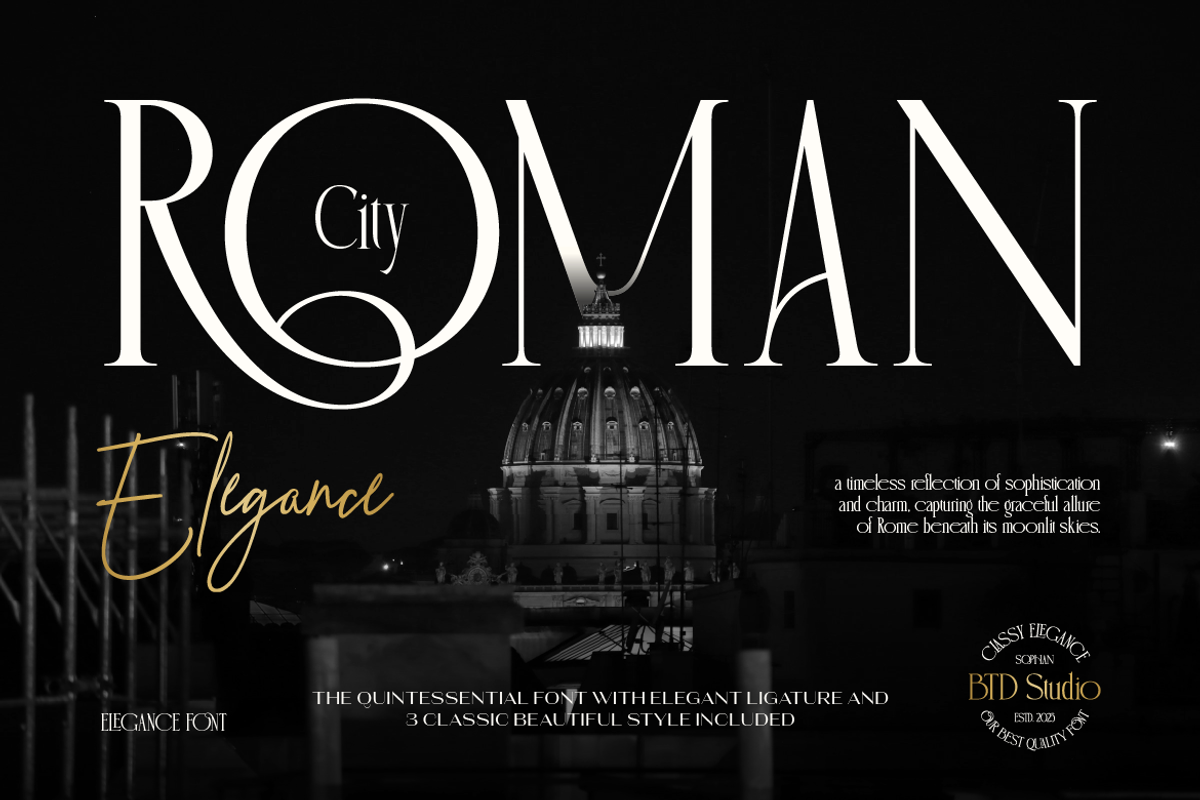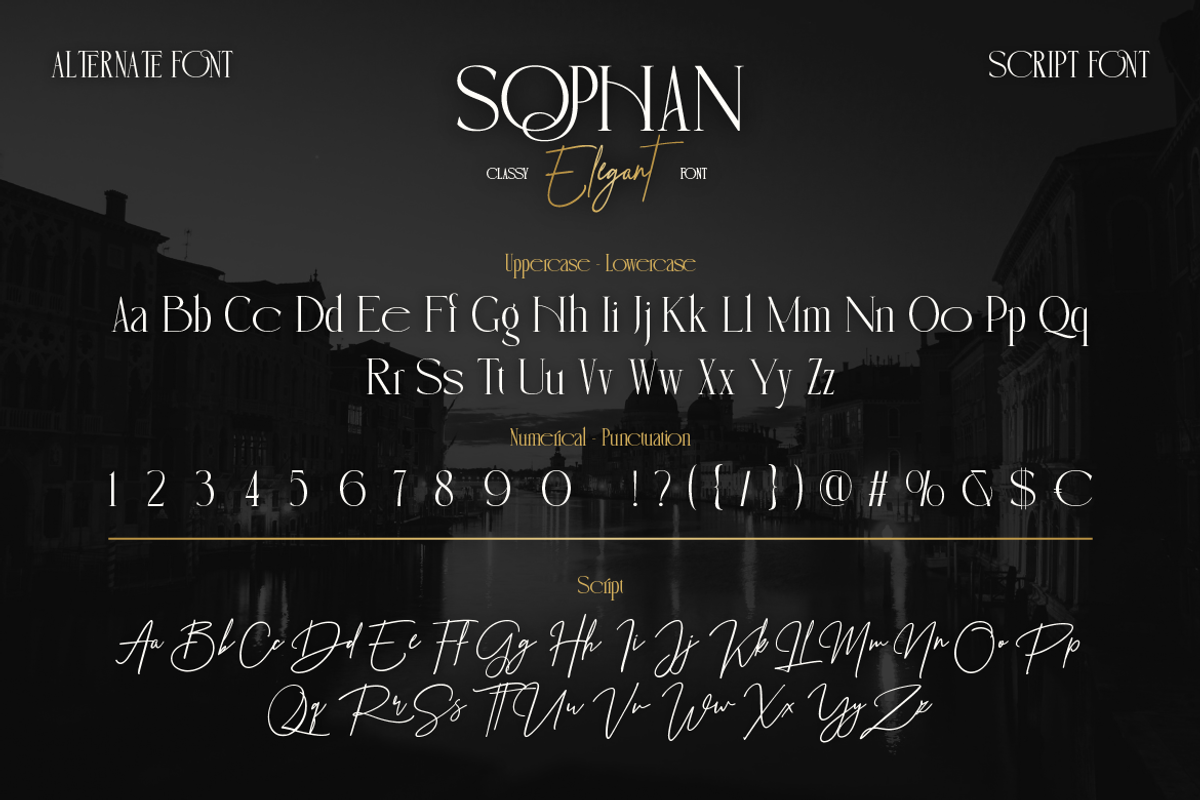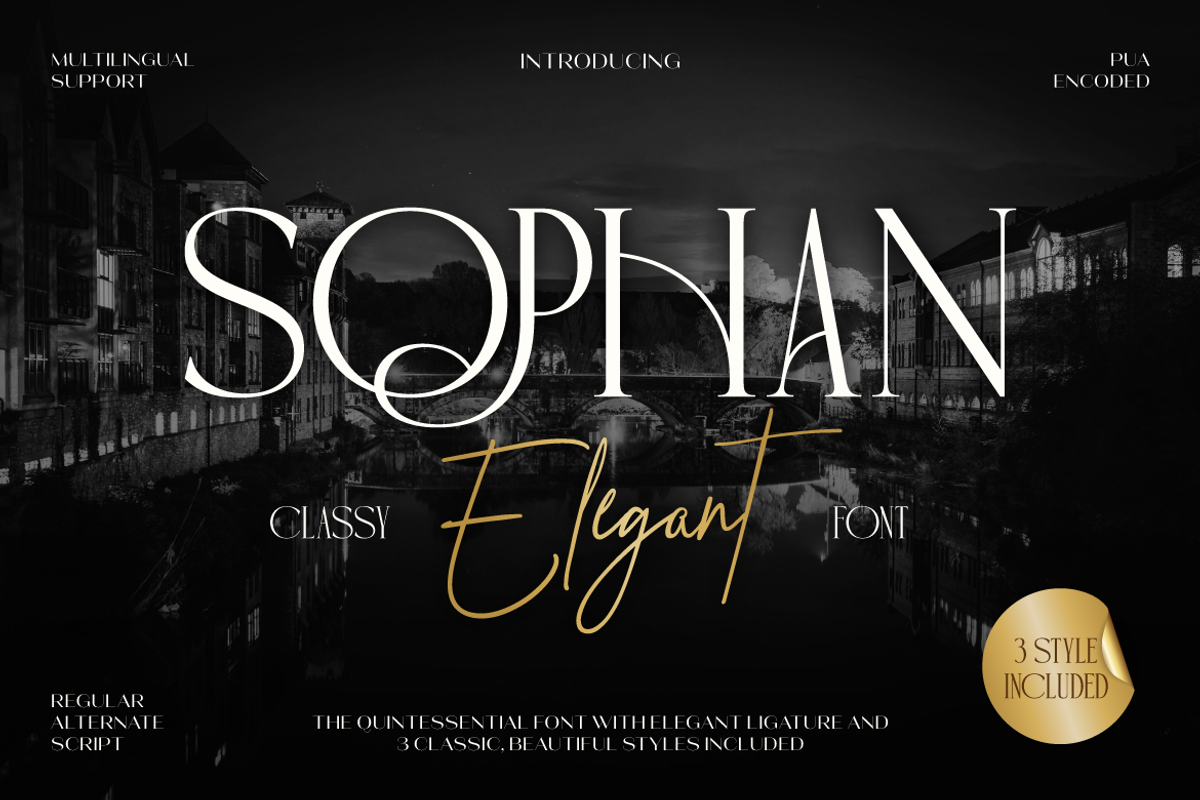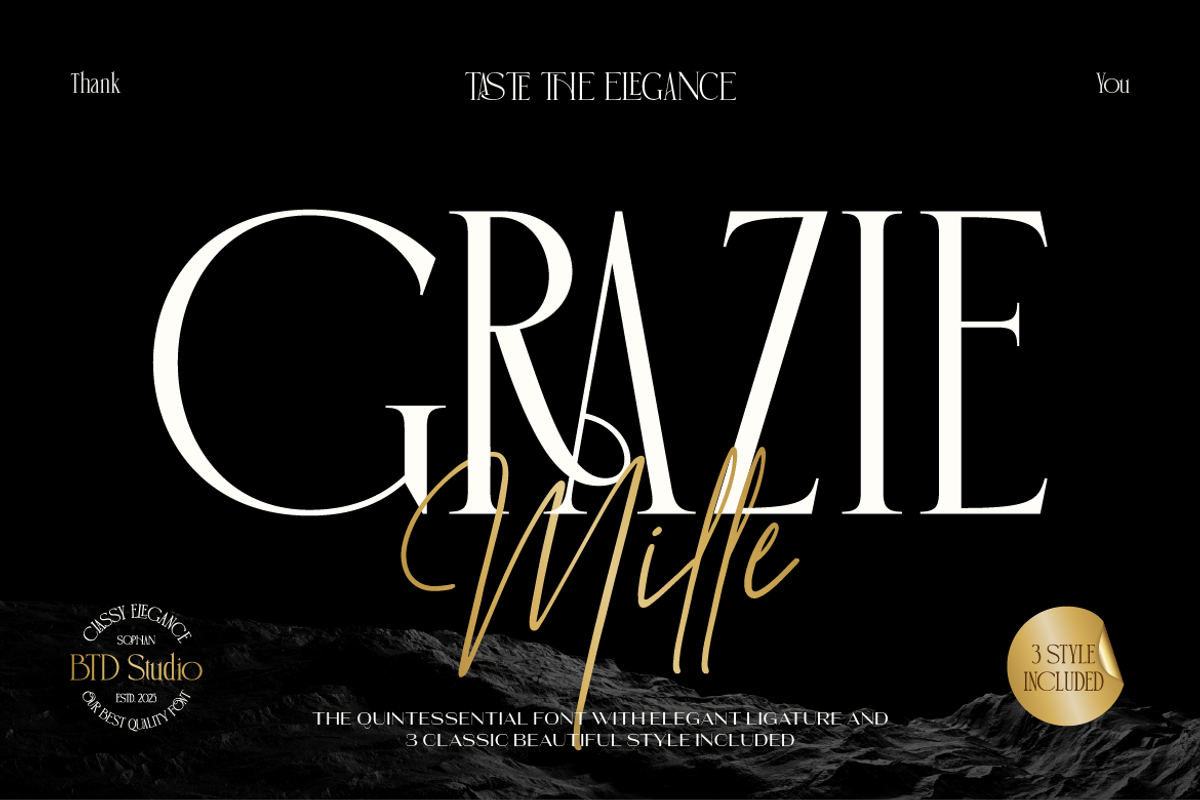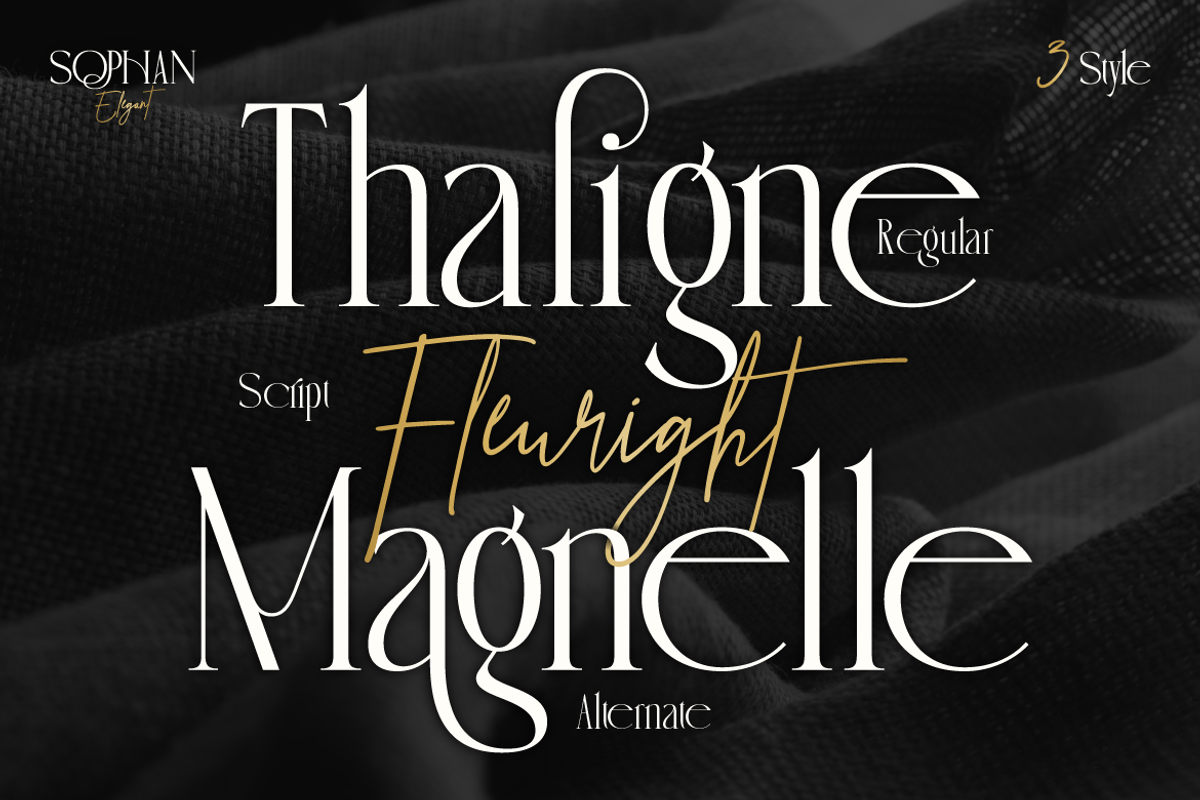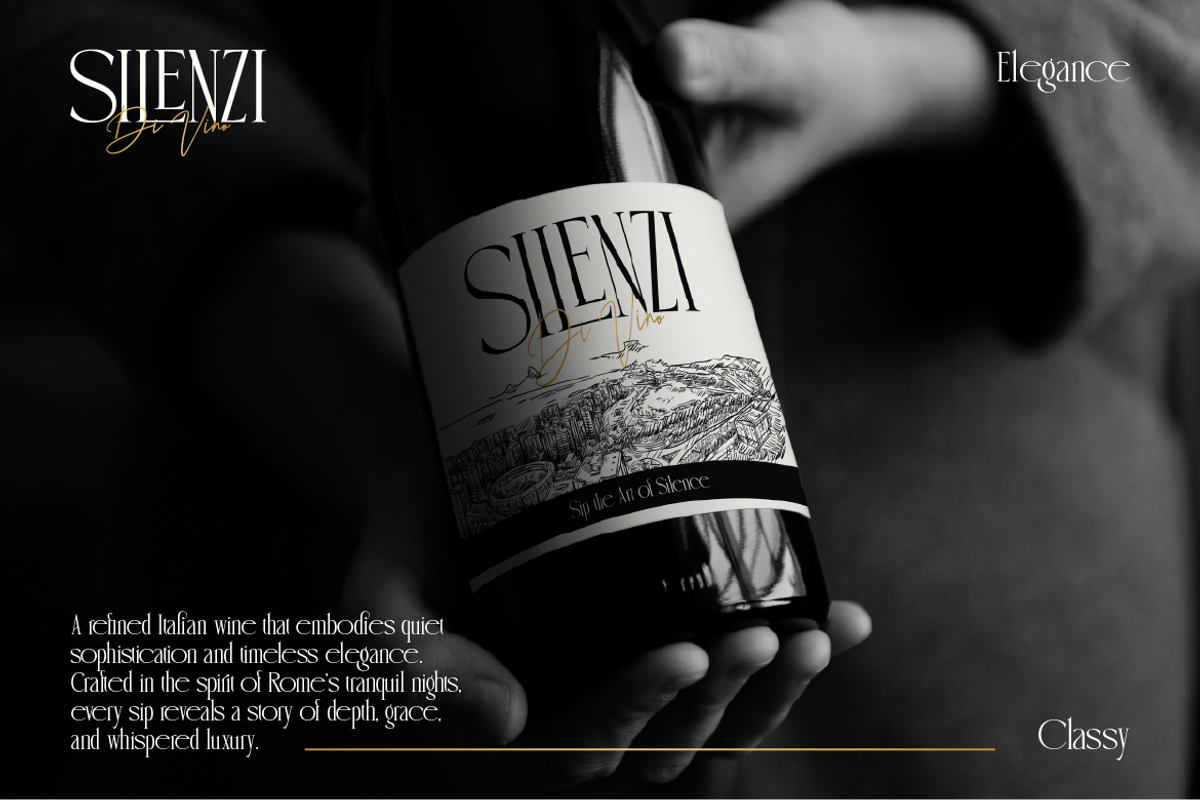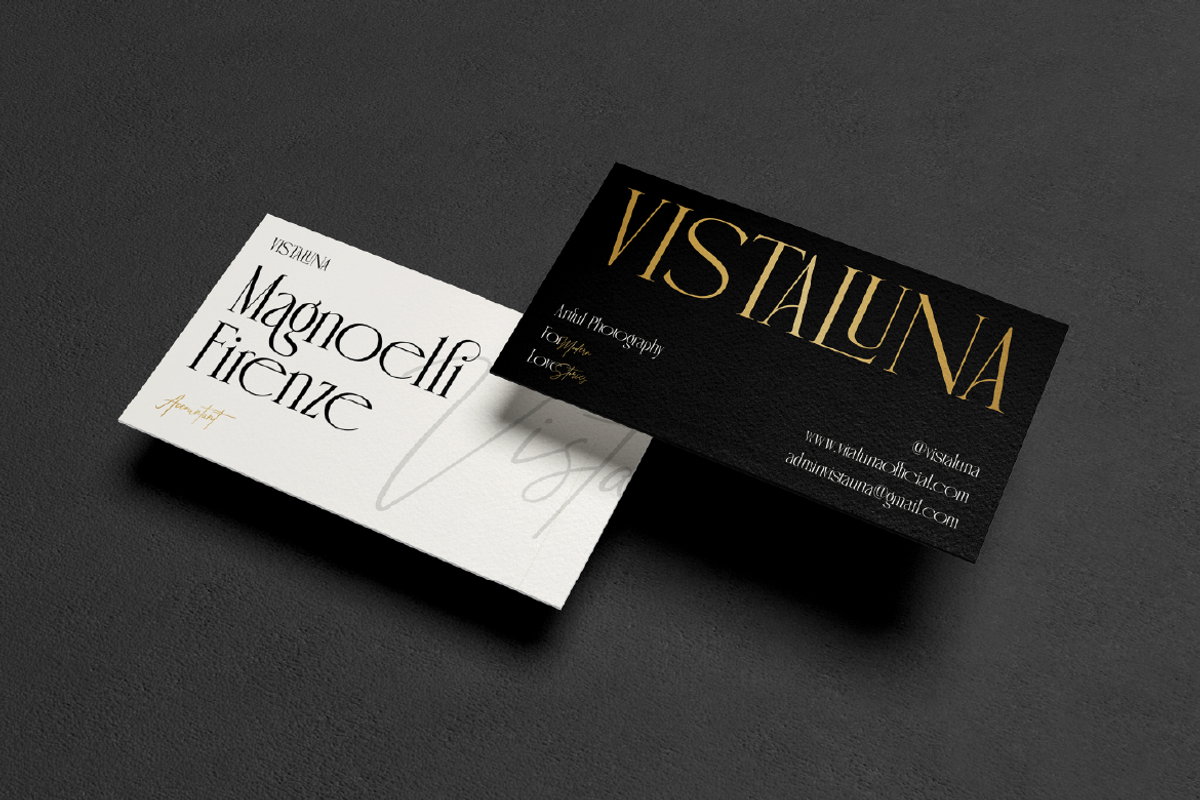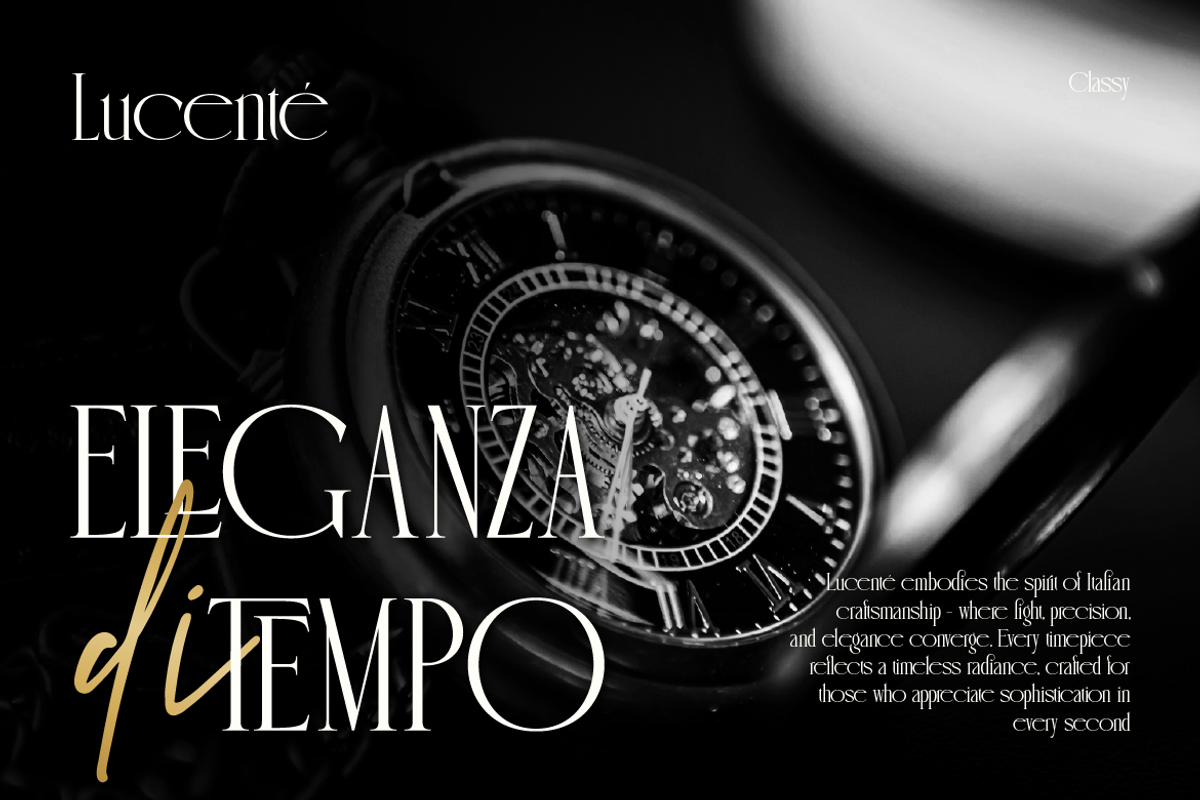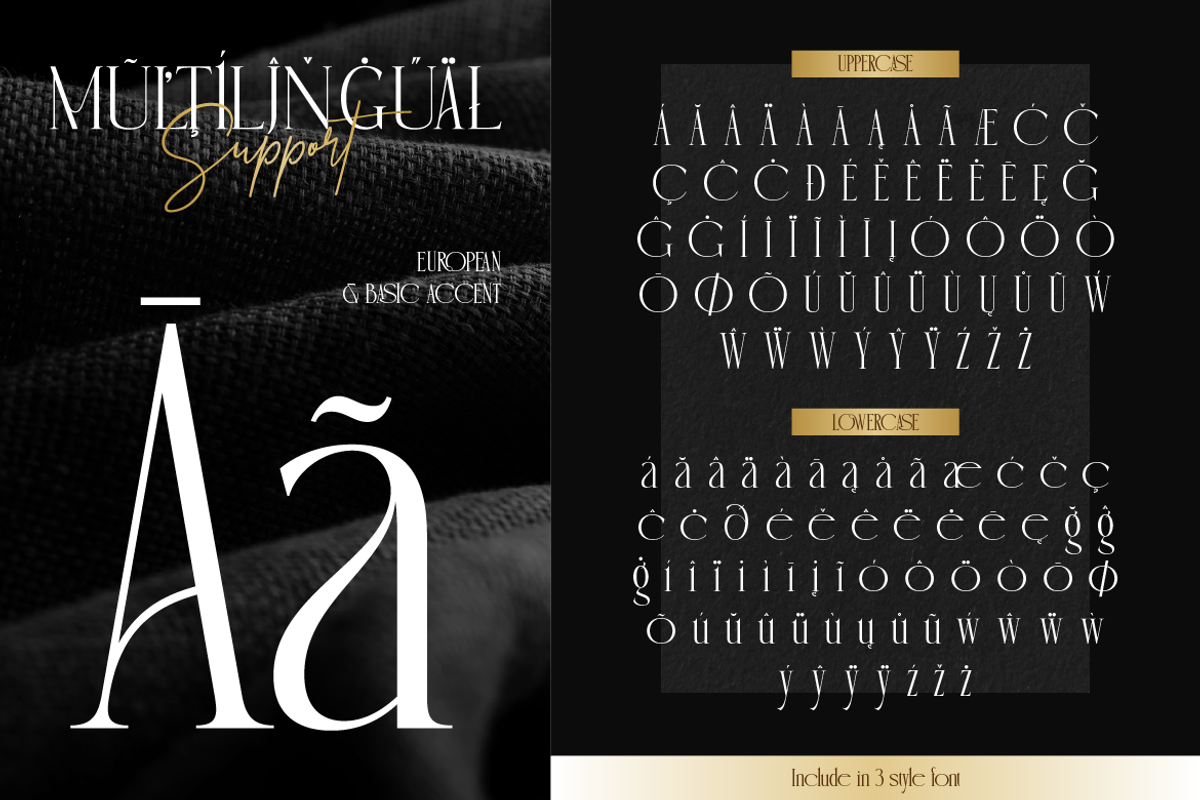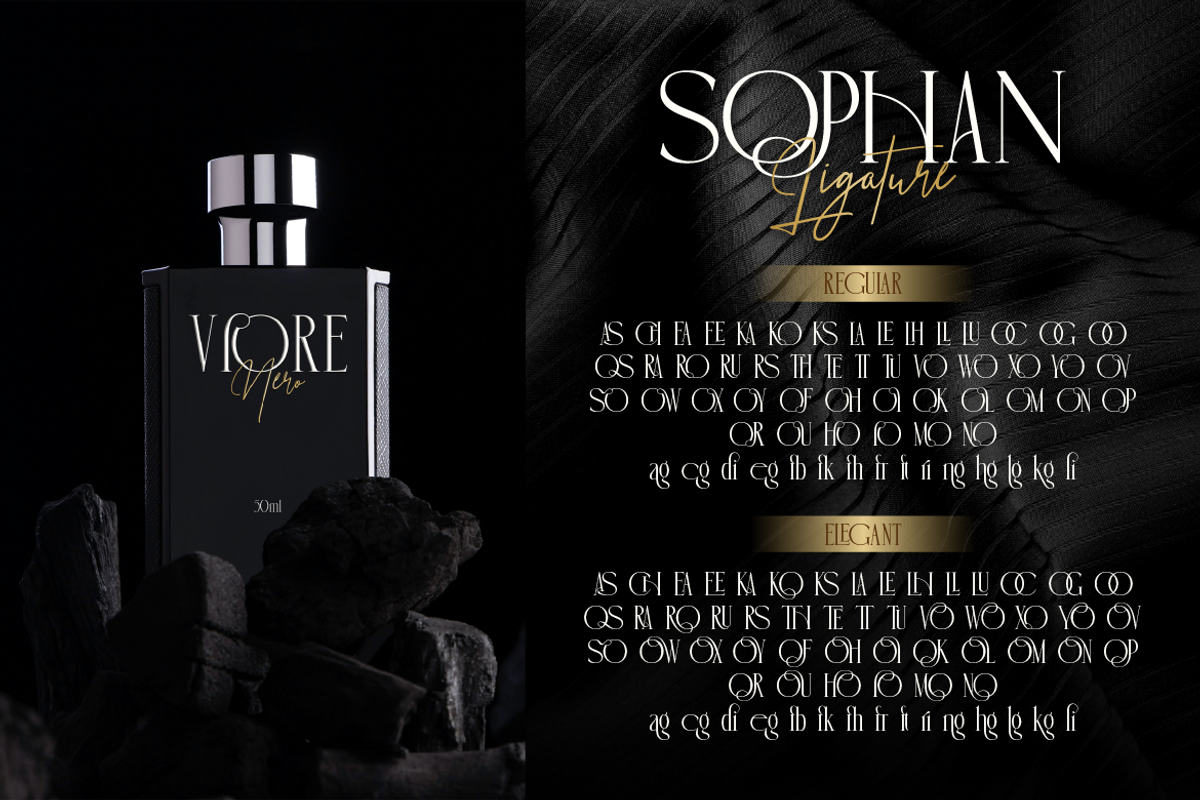
Sophan Elegant
Introducing Sophant Elegant — a refined typeface that embodies timeless sophistication and modern grace. Designed with exquisite ligatures and smooth curves, Sophan brings a touch of luxury to every word you create. This font family includes three stunning styles — Regular, Alternate, and Script — perfectly balanced for high-end branding, editorial designs, logo projects, or elegant packaging. Its delicate serifs and graceful letterforms evoke the charm of European classic typography, wrapped in a contemporary feel. From fashion magazines to boutique logos, Sophan Elegant elevates your design with a whisper of class and a statement of style.
A - Z set (Uppercase & Lowercase)
Number
Sophan Elegant Character Map